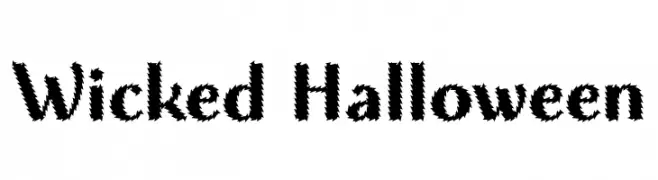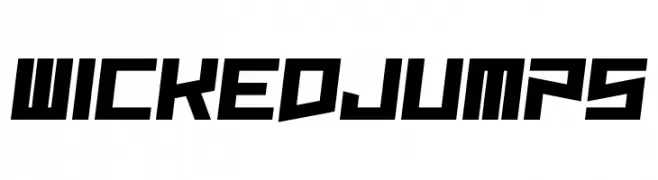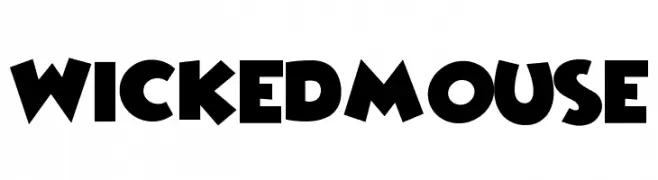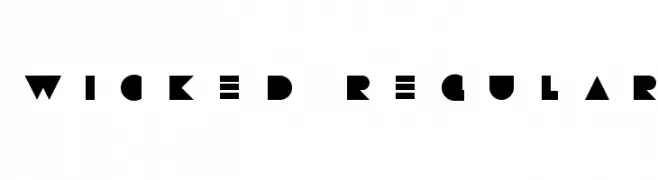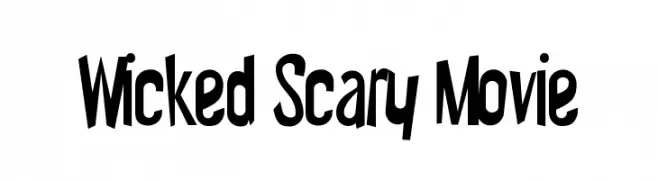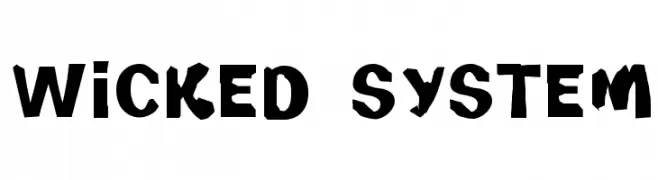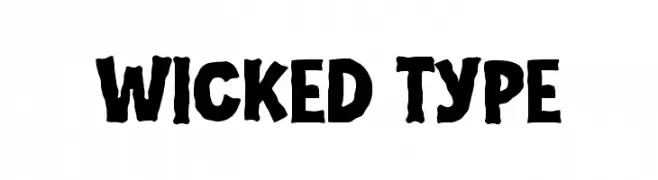
A jagged, thorn-like font perfect for Halloween themes.
A bold, playful font with a whimsical, cartoonish style.
A bold, geometric font with sharp angles and a modern aesthetic.
A bold, playful font with a spooky twist, featuring dynamic strokes and quirky characters.
A bold, distressed font with a grunge aesthetic and irregular shapes.
A dual-style font with bold geometric and thin minimalist uppercase letters.
A bold, hand-drawn font with a rugged and distressed appearance.
An elegant and vintage-inspired font with tall, slightly condensed uppercase letters and rounded lowercase characters.
A bold, decorative font with a woven, grid-like design.